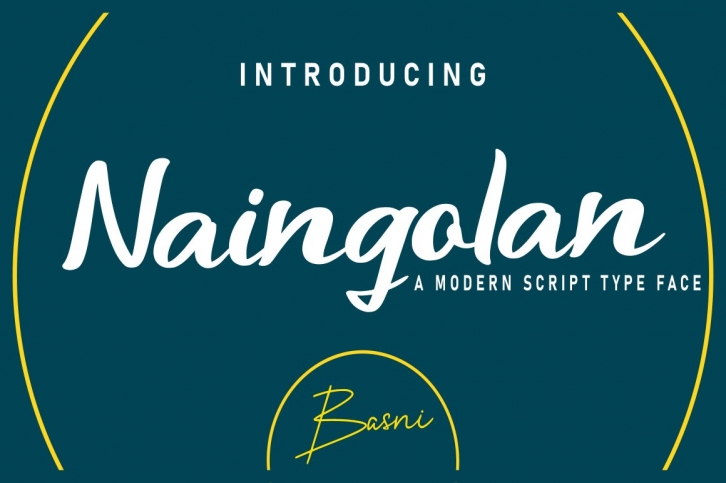
Naingolan is a gorgeous font that was realeased on May 24, 2021. The font can be used in many style contexts and design environments. Perfect for invitations, magazines, websites, logos, and more! It was designed by Basnistd and the file size is 16.26 MB. Thanks for checking out this font!